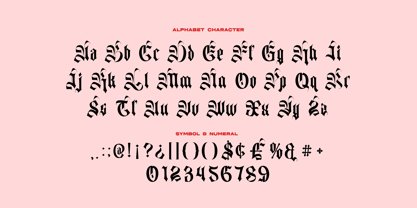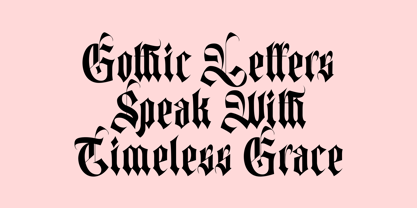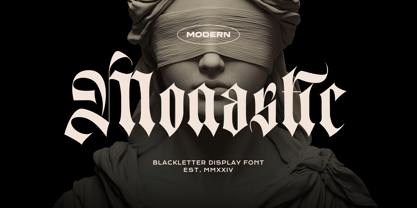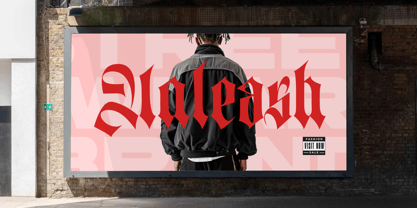
Monastic Blackletter
by Imoodev
The Monastic Blackletter Font Family was designed by Aulia Savira Putri and published by Imoodev. Monastic Blackletter contains 1 styles.
Introducing ‘Monastic’ is a Blackletter typeface with a traditional Gothic style. It features bold, angular strokes and dramatic contrasts between thick and thin lines, typical of medieval script. The letters have sharp edges and intricate details, creating a sense of elegance and formality. Decorative flourishes and swashes, particularly in capital letters, enhance visual appeal and give it a sophisticated, timeless look. This font is ideal for projects that aim to evoke a sense of history, luxury, or tradition, such as in branding, invitations, editorial headlines, artistic compositions, fashion, or promotional materials that aim to convey a mix of heritage and modernity, particularly in urban or streetwear contexts.
Monastic Blackletter